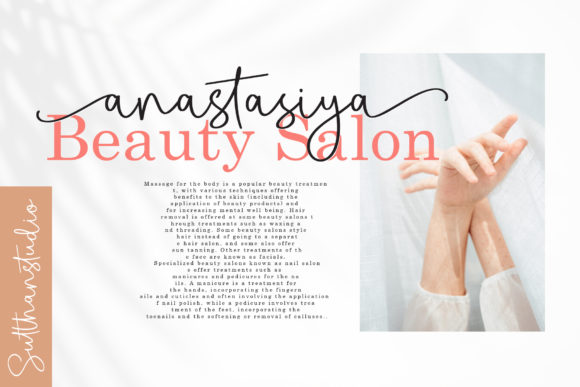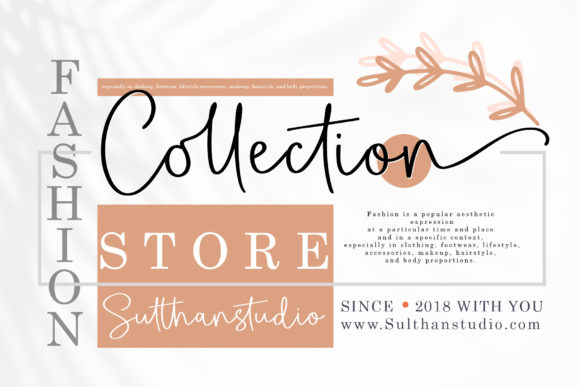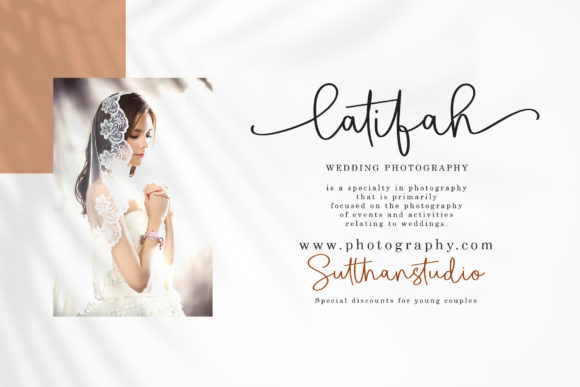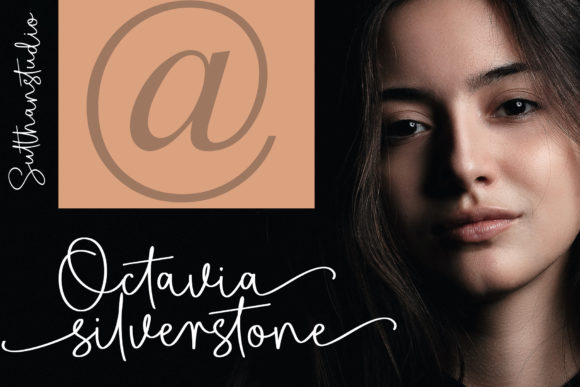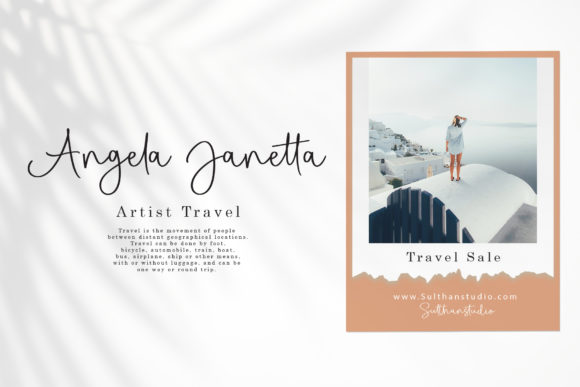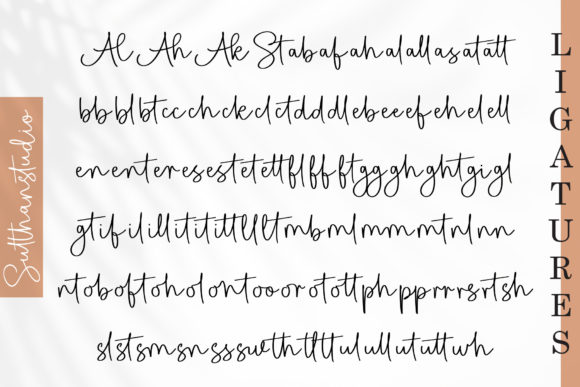
The Magic of Bright Star Font: A Designer’s New Best Friend
I’ll never forget the time I was working on a project for a client who wanted a custom wedding invitation. I had the perfect design in mind, but I was struggling to find the right font. That’s when I stumbled upon Bright Star Font, and it was love at first sight! 💕 This sweet and cursive handwritten font has since become a staple in my design toolkit, and I’m excited to share its magic with you.
An Honest Review of Bright Star Font
So, what makes Bright Star Font so special? Let’s dive into the good stuff and a few quirks I’ve discovered.
• ✨ Sweet and feminine vibe: Bright Star Font has a playful, romantic feel that’s perfect for projects that need a touch of whimsy.
• ✅ Highly legible: Despite its cursive nature, this font is surprisingly easy to read, even at smaller sizes.
• 🌈 Versatile: Bright Star Font looks stunning on a variety of design materials, from invitations and greeting cards to social media graphics and blog posts.
While Bright Star Font is an amazing addition to any design project, there are a few things to keep in mind:
• 🤔 Limited use in formal contexts: Due to its playful nature, Bright Star Font might not be the best fit for formal or corporate designs.
• ⚠️ Some letters may require manual kerning: As with any font, you might need to adjust the kerning for certain letter combinations to achieve optimal results.
A Practical Guide to Using Bright Star Font
Now that we’ve covered the basics, let’s explore how to use Bright Star Font in some popular design platforms.
3. Experiment with OpenType features like ligatures and stylistic alternates to add more flair to your text.
The Story Behind Bright Star Font
Bright Star Font was created with the intention of capturing the essence of a whimsical, romantic feel. Its designer aimed to craft a font that would bring joy and elegance to various design projects. While the actual story behind the font might be unknown, its impact on the design community is undeniable.
What type of projects is Bright Star Font best suited for? Bright Star Font is perfect for creative projects like invitations, greeting cards, social media graphics, and blog posts.
Is Bright Star Font suitable for body text? While Bright Star Font is legible, it’s best used for headings and short paragraphs due to its cursive nature.